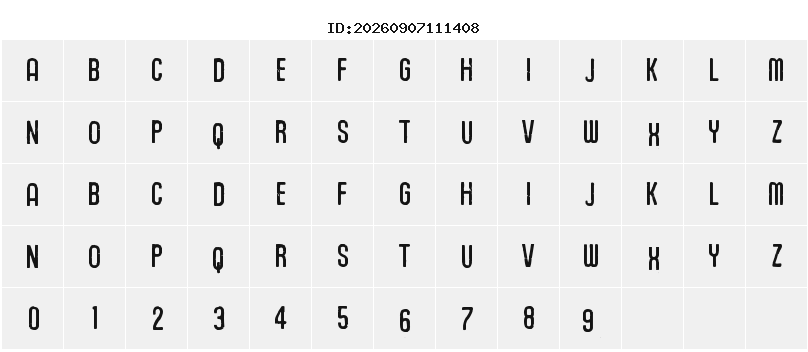
Union Agrochem Preview
• Font Name: Union Agrochem
• Font Style: Charkrapetch
• Full Font Name: Union Agrochem Charkrapetch
About Union Agrochem.ttf
Union Agrochem.ttf is a modern, elegant sans-serif font designed for ultimate readability and visual harmony. Perfect for branding, headlines, web design, and print materials.